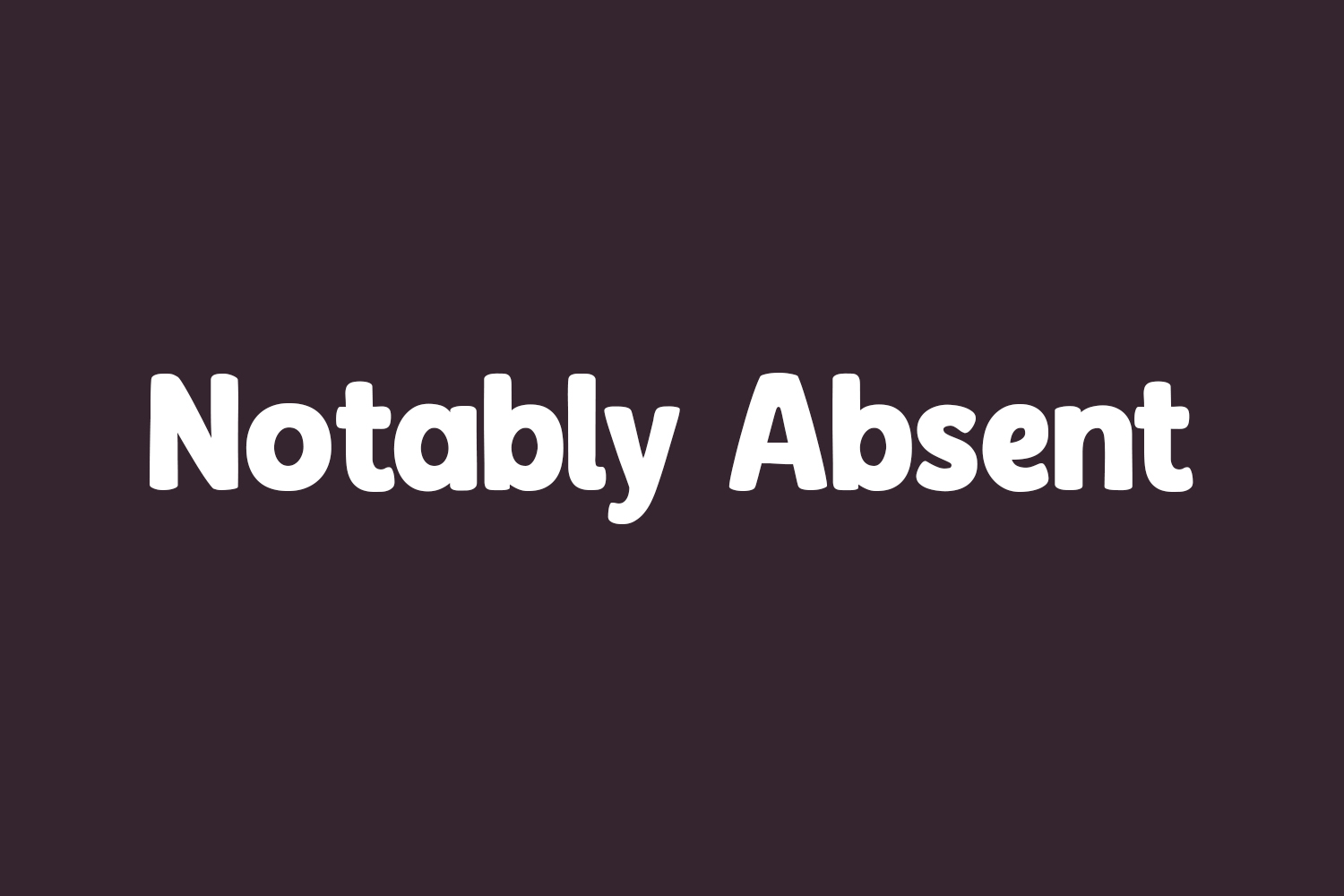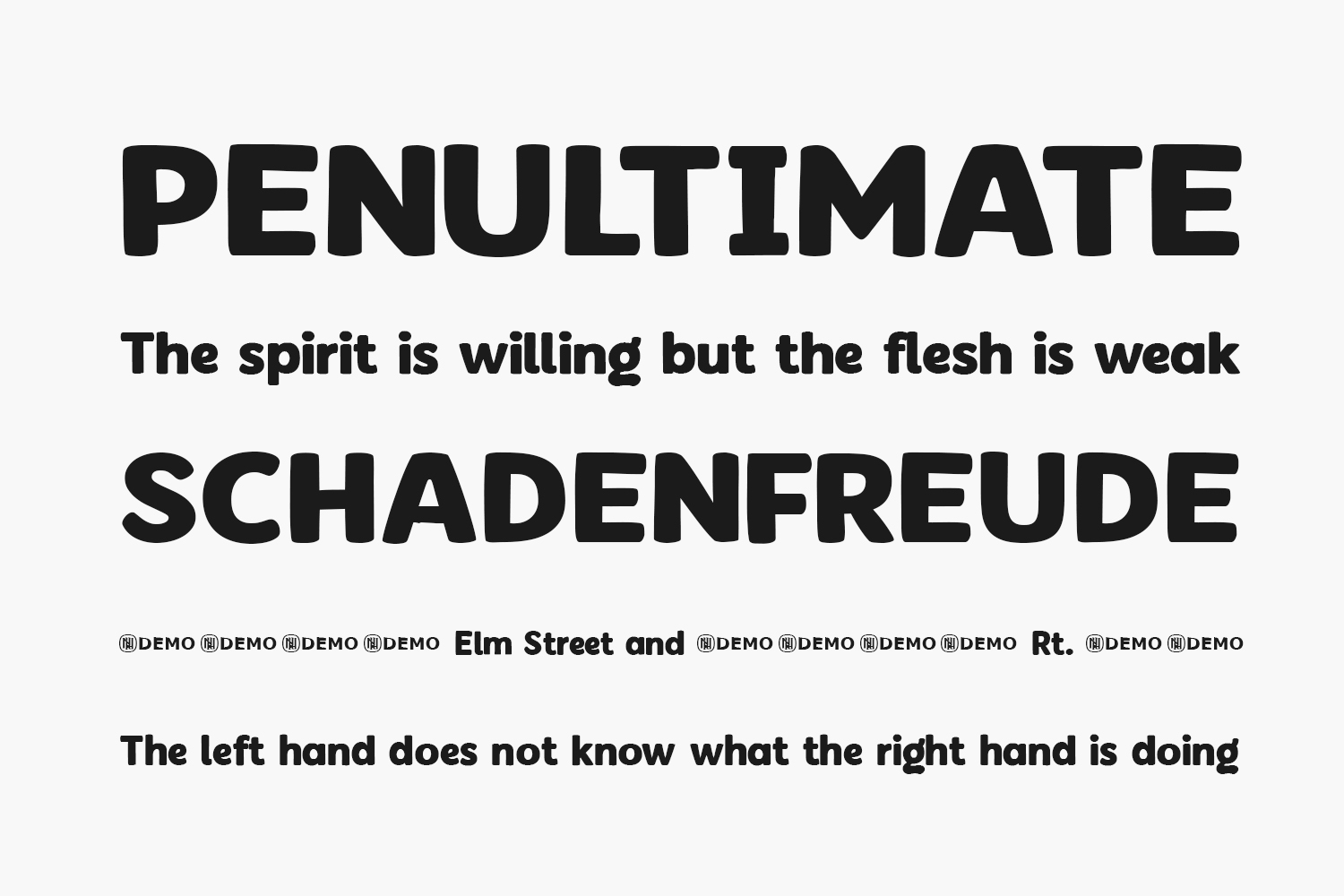
Notably Absent Free Font is a cool and vintage styled display font. It will elevate a wide range of crafting ideas, from cards to branding, labels, and much more. Notably Absent Free Font was designed by Niskala Huruf is a demo and free for personal use only. Please purchase the full version for commercial use.